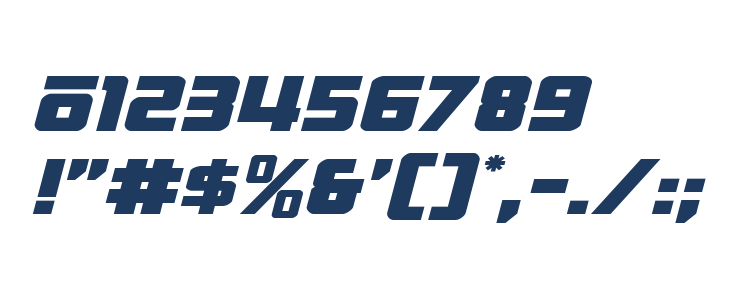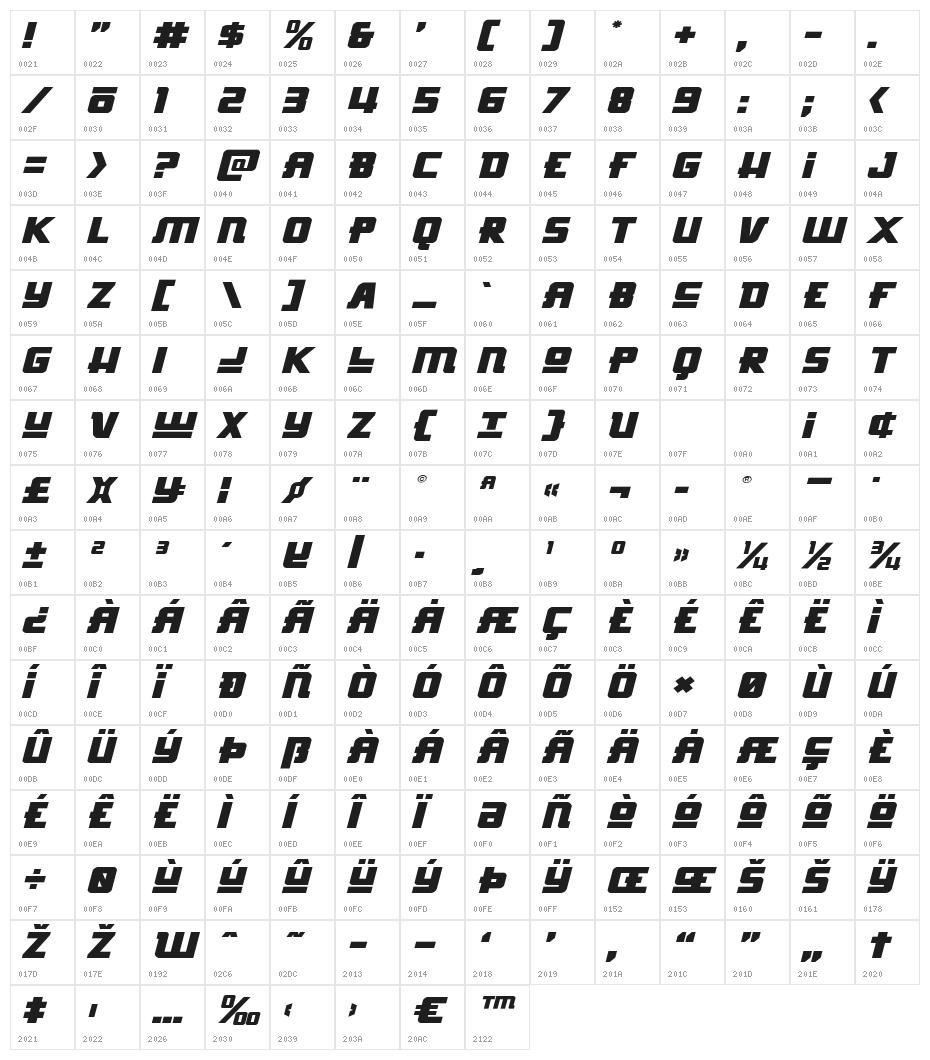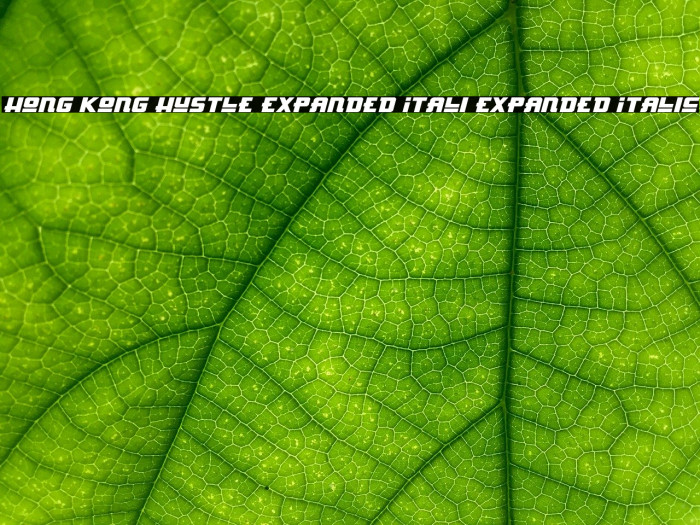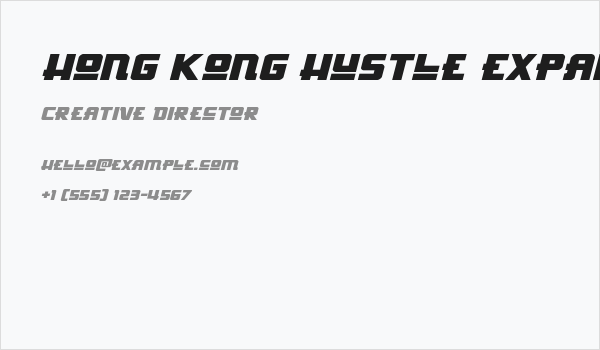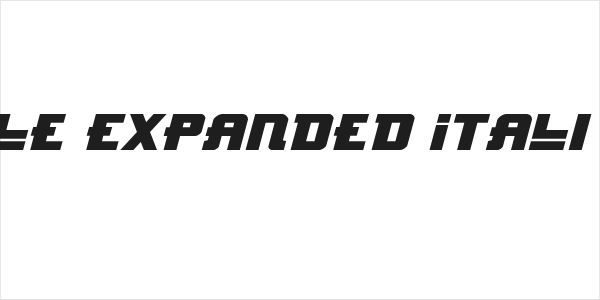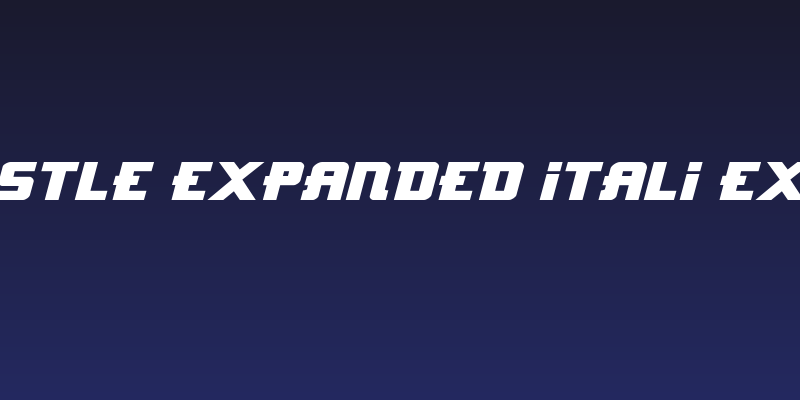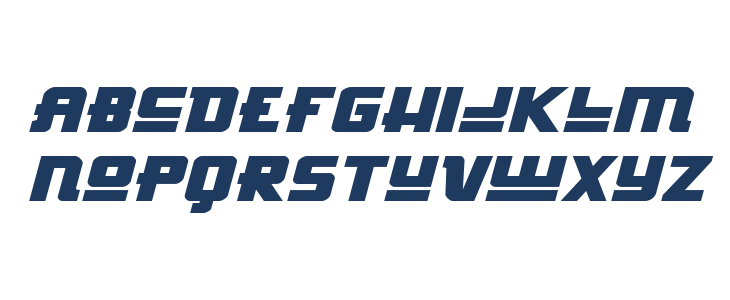
Hong Kong Hustle Expanded Itali Expanded Italic Font
Hong Kong Hustle Expanded Itali Expanded Italic Description
This font features a bold and dynamic style with an expanded and italicized appearance. The characters are designed with sharp angles and a futuristic aesthetic, giving them a unique and modern look. The uppercase and lowercase letters maintain a consistent style, with a slight slant that adds to the font's energetic feel. The numbers and special characters are equally bold and match the overall design, making this font suitable for attention-grabbing headlines and creative projects. The expanded width of the characters provides a strong visual impact, while the italicization adds a sense of motion and speed.
| Proposed Projects | Ideal for use in technology branding, sports team logos, video game titles, and dynamic advertising campaigns. |